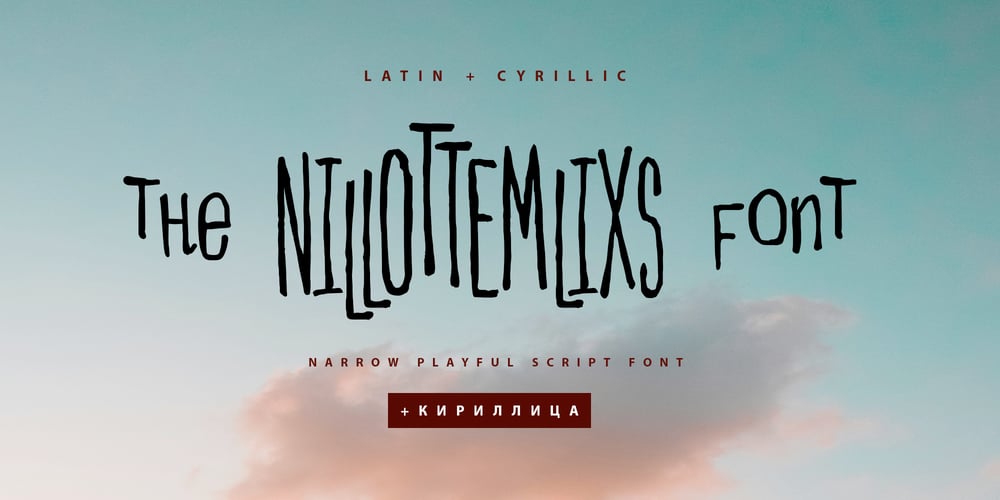
Nillottemlixs Cyrillic
Nillottemlixs Cyrillic font
Nillottemlixs Cyrillic Font Family was designed by Iryna Dviliuk and published by Ira Dvilyuk. Nillottemlixs Cyrillic contains 1 styles and family package options. Nillottemlixs Cyrillic is playful script font is a pretty font that will look gorgeous on all your designs, branding materials, logos, pretty teenage stickers, business cards, Insta quotes, fashion sketches, and much more.Multilingual Support for 34 languages: Latin glyphs for Afrikaans, Albanian, Basque, Bosnian, Catalan, Danish, Dutch, English, Estonian, Faroese, Filipino, Finnish, French, Galician, Indonesian, Irish, Italian, Malay, Norwegian Bokmål, Portuguese, Slovenian, Spanish, Swahili, Swedish, Turkish, Welsh, Zulu.And Cyrillic glyphs support Ukrainian, Belorussian, Bulgarian, Russian Mongolian and Kazakh languages.Works perfectly on the Canva platform.For Cricut & Silhouette recommended.Thanks!